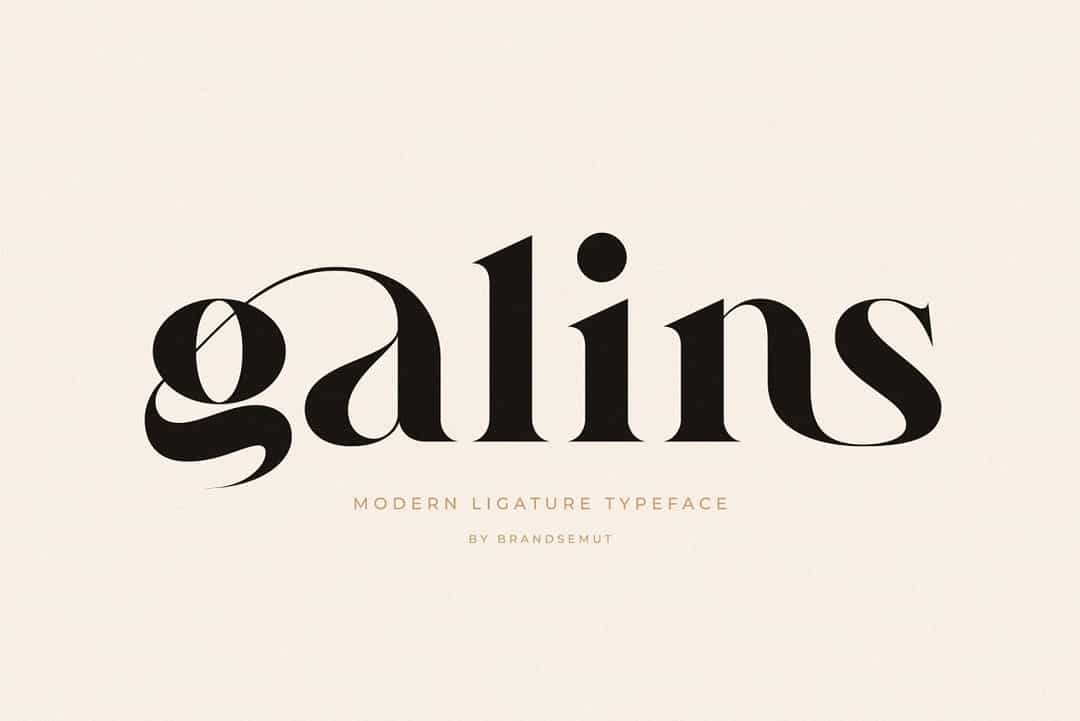
Discover Galins Font, part of the Serif collection—a versatile and unique font perfect for adding a personal touch to your projects. Download it for free and enjoy crafting designs with style, from invitations to social media posts. This font is available exclusively for personal use, giving you the freedom to create without limits. Unlock your creativity with Galins Font today!
Welcome the Galins-ligature font! Galins is an elegant serif font designed to add modernity and chicness to your designs, perfect for magazines, logos and social media! Already matched and ready to use in your next layouts – for those seeking elegant modern chic styles this font was made specifically to meet those needs!